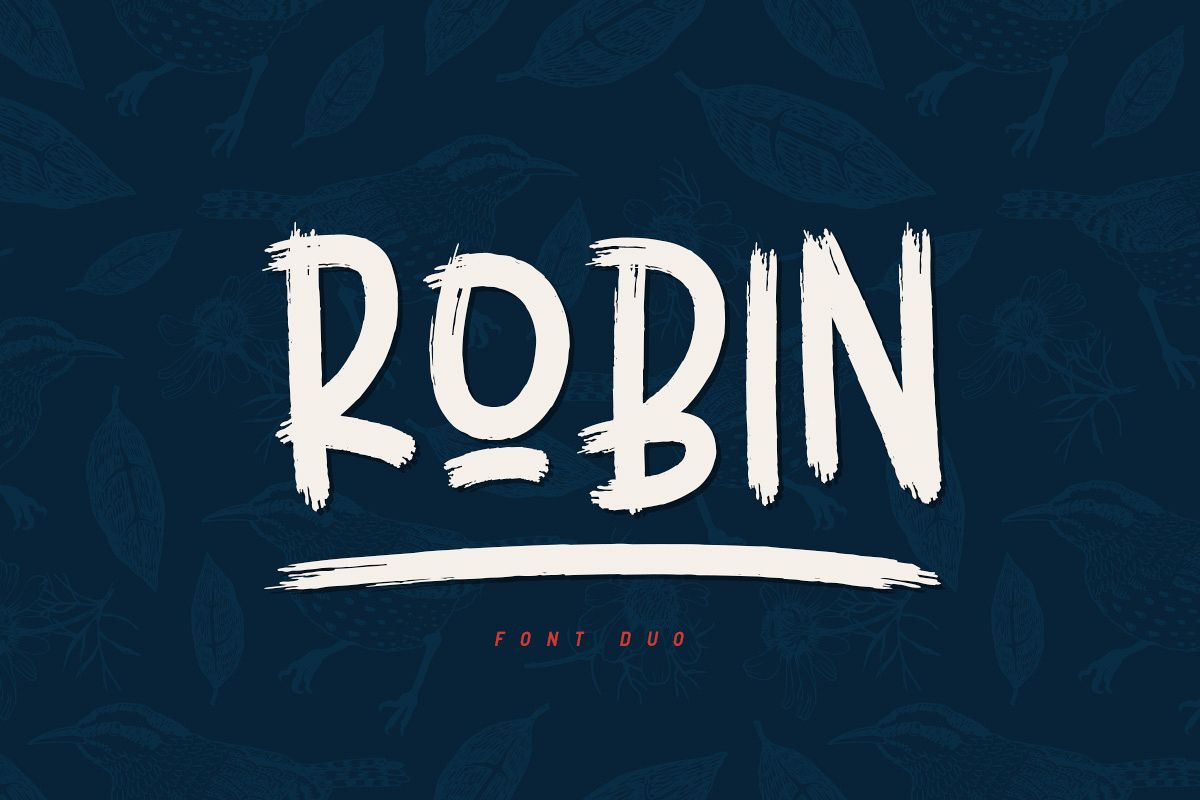
Robin
Robin is a hand drawn brush font. It includes 2 versions, to simulate your lovely design. Perfect for many different projects: quotes, blog header, poster, wedding, branding, logo, fashion, apparel, letter, invitation, stationery, etc.
Robin